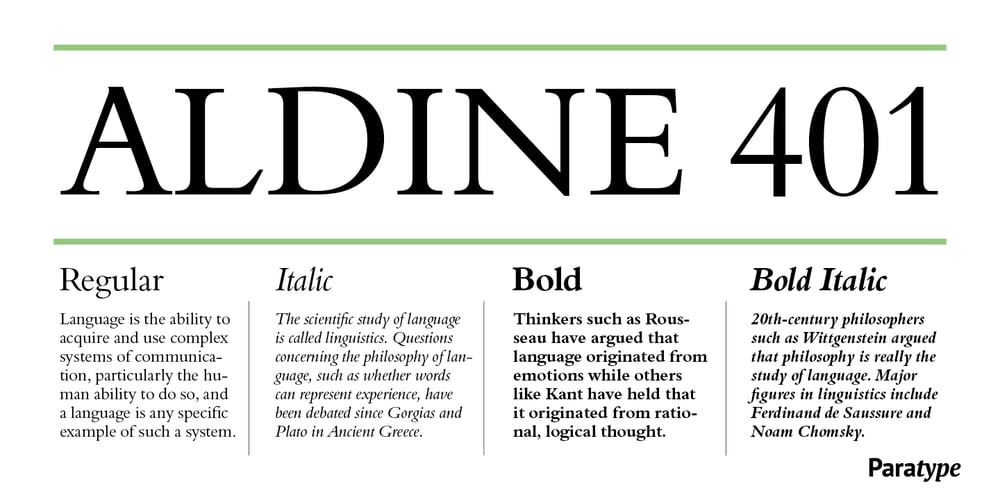
Aldine 401 Font Family was designed by Isabella Chaeva, Aldus Manutius and published by ParaType. Aldine 401 contains 4 styles and family package options. Aldine 401 is Bitstream’s version of the Bembo type family. It was designed based on the artwork of Francesco Griffo for Aldus Manutius. The prototype font originally appeared in “De Aetna” in 1495, a book by Pietro Bembo about his journey to Mount Etna. Griffo’s design was one of the first old-style typefaces, followed by Garamond, and it set the standard for text types in Europe for the next two centuries. A modern version of Bembo was designed at Monotype under the supervision of Stanley Morison in 1929. Aldine 401 remains very popular in book design due to its well-proportioned classic letterforms and lack of peculiarities. The italic style is based on the handwriting of Giovanni Tagliente. Books and other texts set in Aldine 401 can cover a wide variety of subjects and formats because of its classical beauty and high readability. The Cyrillic version was developed by Isabella Chaeva and released by Paratype in 2008.Aldine 401 main characteristics: 4 styles: Regular, Italic, Bold, Bold Italic 621 glyphs in every style 14 OpenType features Extended Latin and Cyrillic support And if you need font files in different formats, or want to try this font, just drop us a line at fonts@paratype.net, and we’ll work something out.